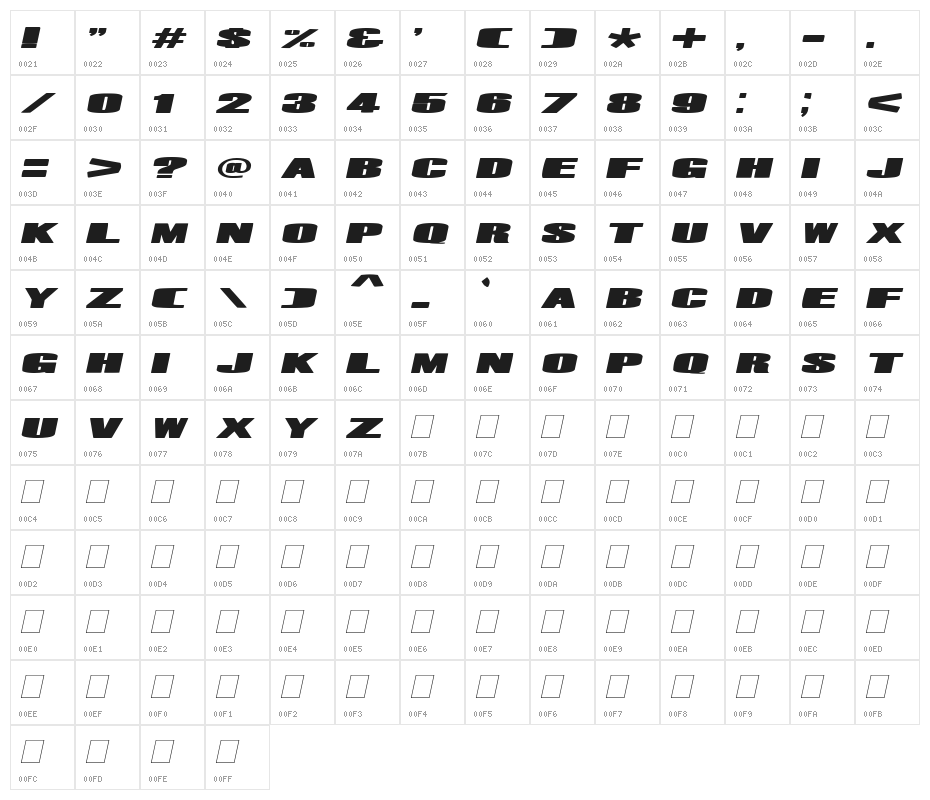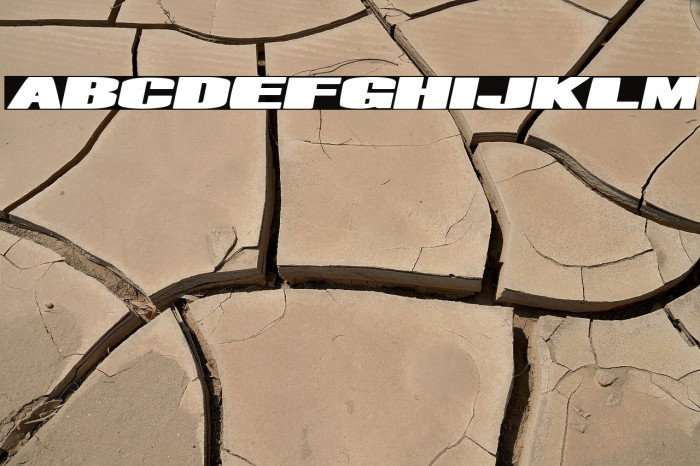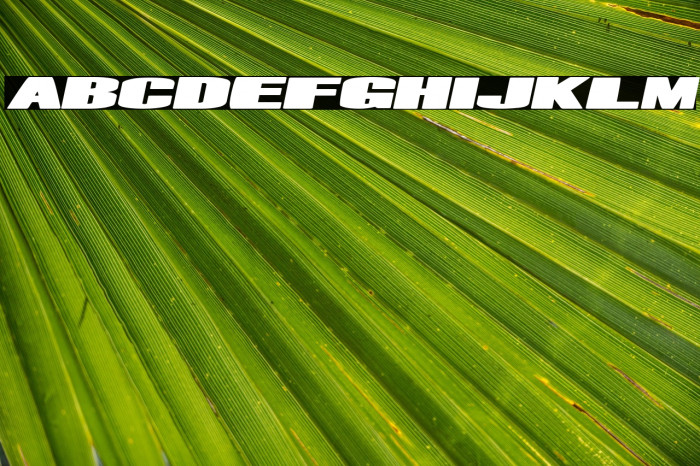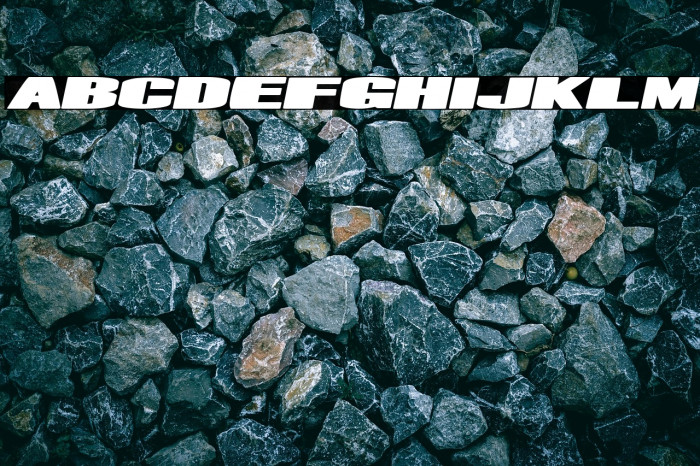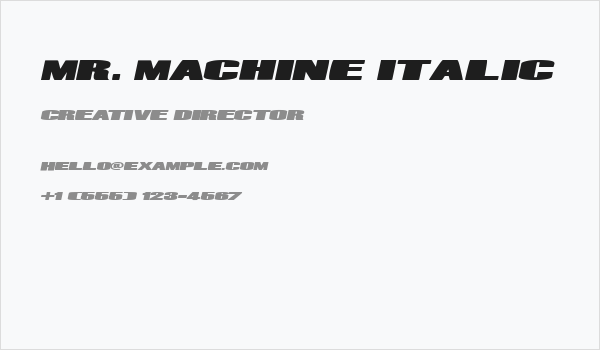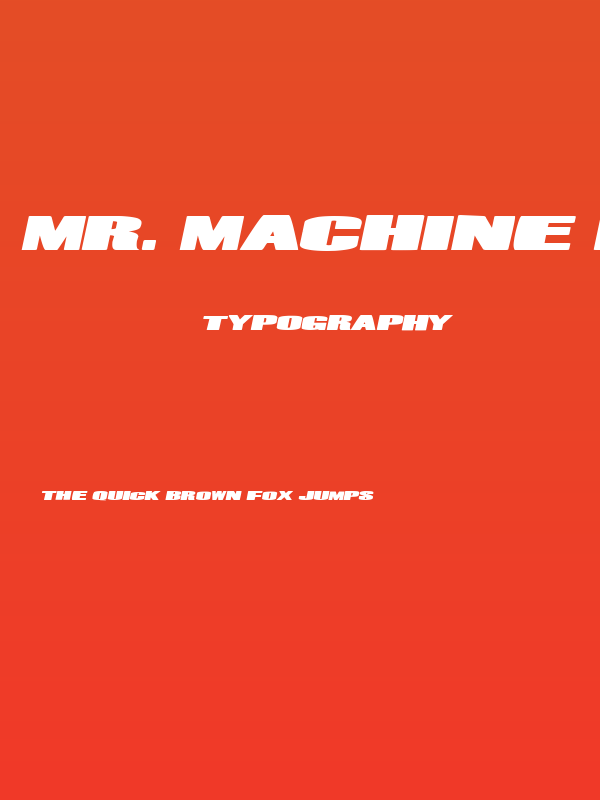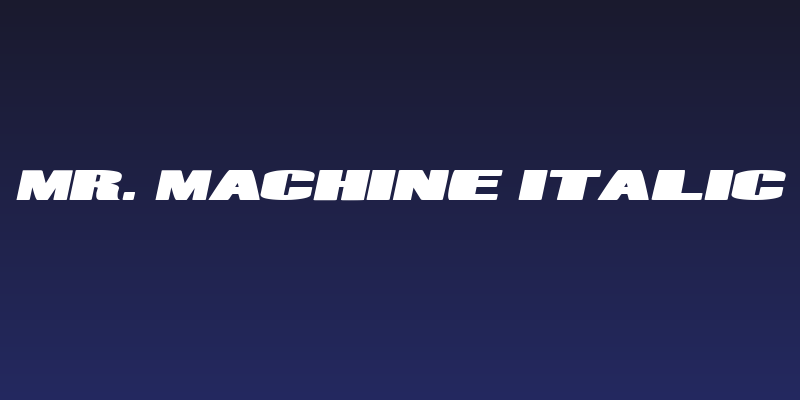
Mr. Machine Italic Font
Mr. Machine Italic Description
This font features a bold and dynamic style with a strong italic slant, giving it a sense of motion and urgency. The characters are wide and have a heavy weight, making them stand out prominently. The design includes sharp angles and clean lines, contributing to a modern and industrial feel. The uppercase and lowercase letters maintain a consistent style, while the numerals and special characters are designed to complement the overall aesthetic. The font's boldness and unique style make it suitable for impactful headlines and attention-grabbing designs.
| Proposed Projects | Ideal for sports branding, automotive advertisements, dynamic posters, and modern logos. |